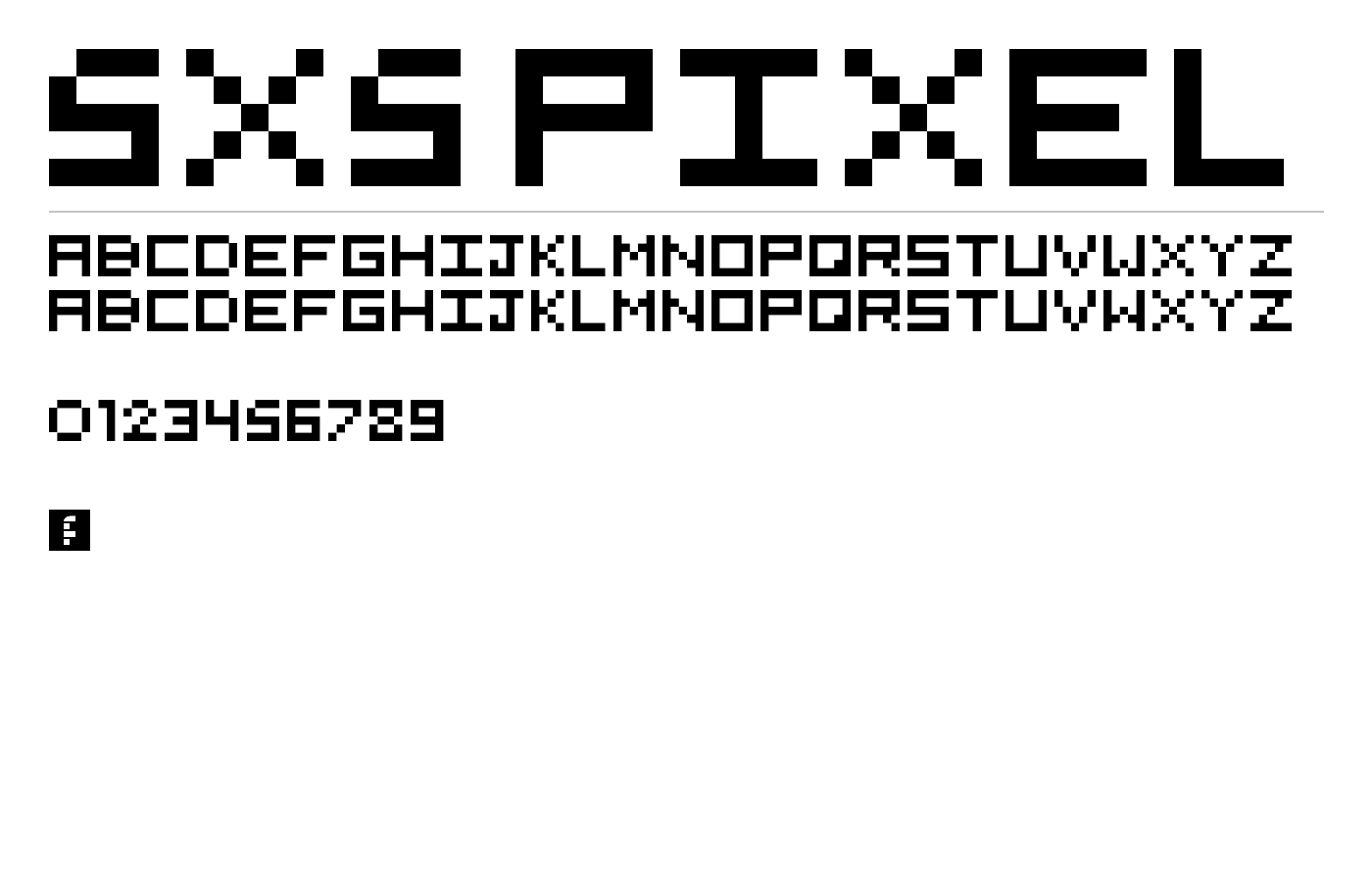
5x5 Pixel Font is a bold, monospaced pixel-style sans serif that features blocky, geometric letterforms crafted from a 5x5 grid of squares. Its clean, rigid structure and uniform stroke weight give it a retro digital or gaming vibe, making it ideal for use in pixel art, tech-themed designs, and any project seeking a nostalgic yet modern digital aesthetic. This font works best in logos, headlines, or user interfaces where clarity at small sizes and a distinctive pixelated look are needed.
5x5 Pixel Font
About 5x5 Pixel Font